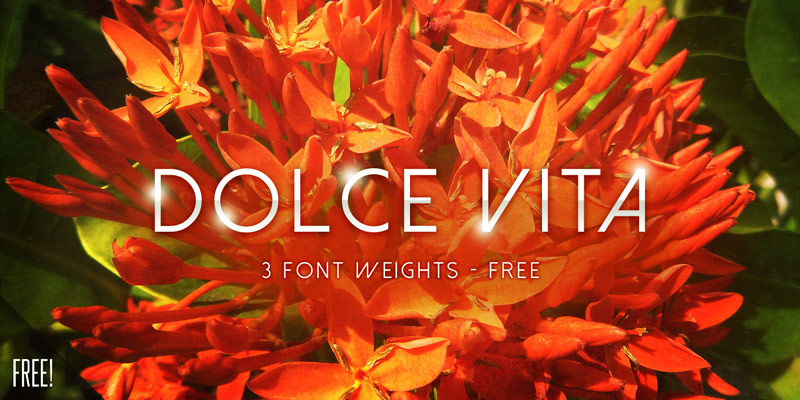
Preview and download Dolce Vita Font. Created by MuraKnockout Media + Design in Basic Sans serif styles with 100% Free license.
This is a capital font made for designers, by designers. Whether you need logos, body type, or anything in between, Dolce Vita is ready to spice things up for you. Dolce Vita comes in 3 exotic weights: Light, Normal, and Bold, for your designs pleasure and convenience. Live la Dolce Vita! ----------------------- Check out all of our fonts, free and premium, at: http://muraknockout.com ----------------------- Please DO NOT download this font and redistribute it on another website! This font is free for any personal or commercial project. For a full licensing agreement please check out: http://muraknockout.com/licensing |